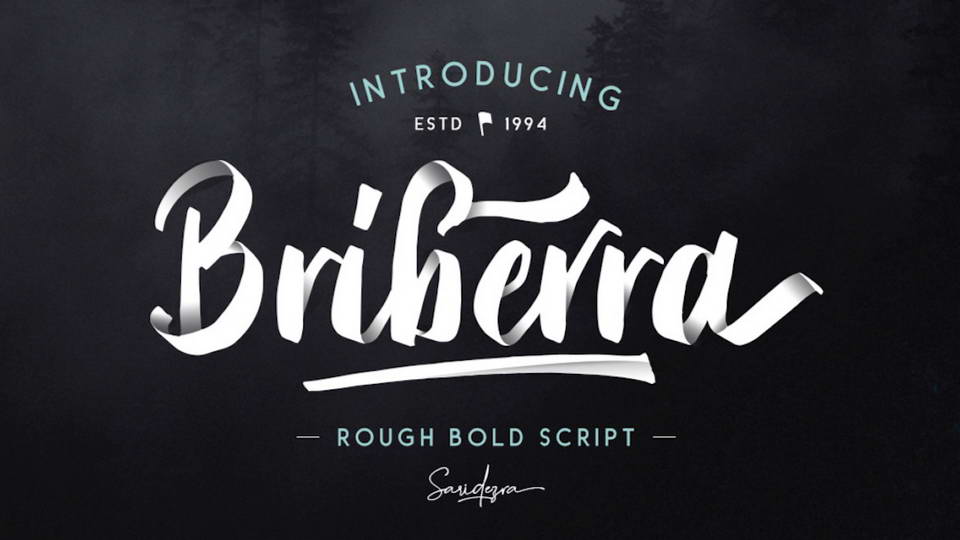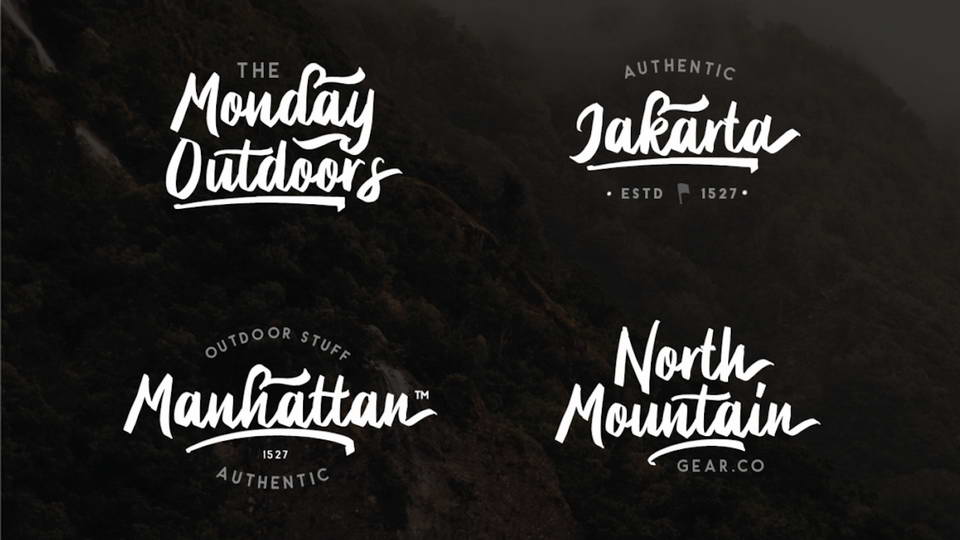
Briberra – free hand lettered script font. It contains full set of uppercase and lowercase letters, numerals, symbols, stylistic alternates & swashes that will help to create your own customized designs. Briberra also have multilingual support. This font looks great for quotes, t-shirt designs, branding and plenty of other projects.